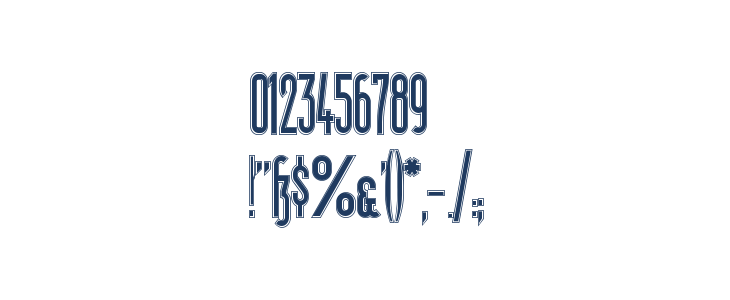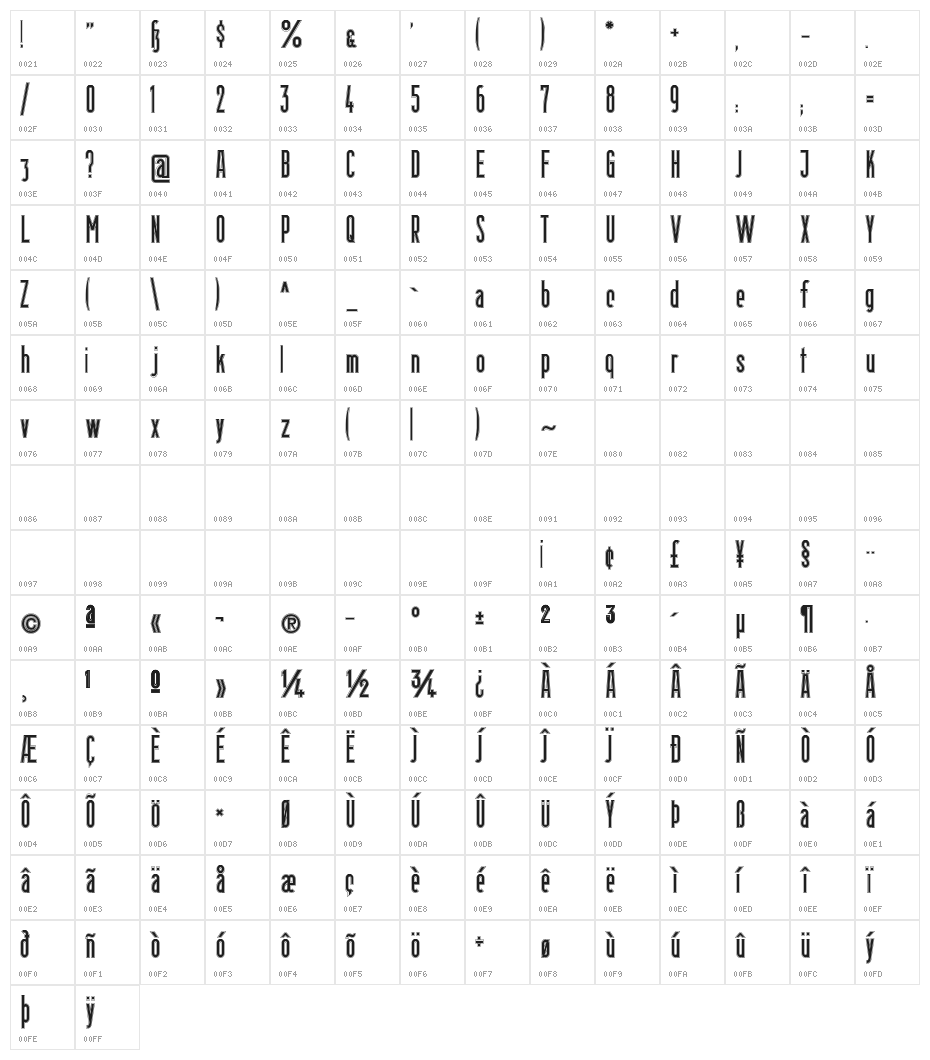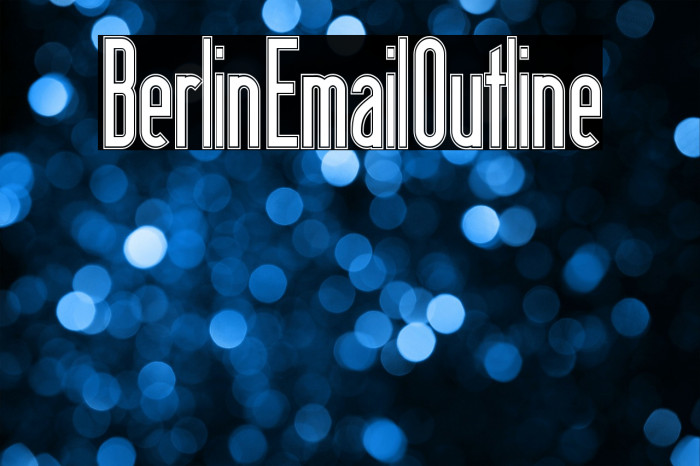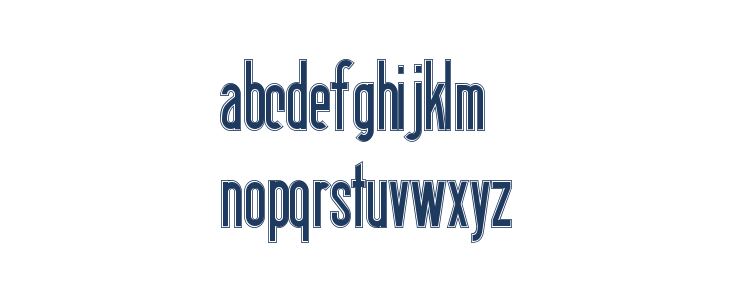
Berlin Email Outline Font
Berlin Email Outline Description
This font features a bold, outlined style that gives it a striking and modern appearance. The uppercase and lowercase letters are designed with a consistent width, providing a uniform look across all characters. The numbers and special characters follow the same outlined design, ensuring cohesion throughout the font. The clean lines and geometric shapes make it ideal for creating impactful headlines or titles. Its distinct outline adds a layer of depth, making it stand out in any design project.